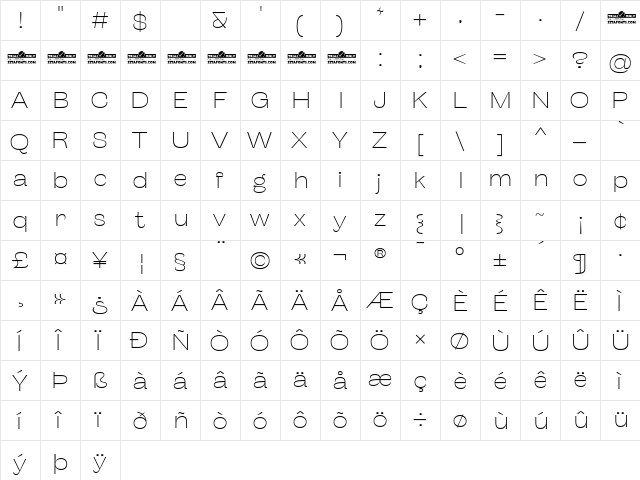
Stinger Wide Trial Thin
| Foundry | Studio Kmzero & Zetafonts |
| Designer | Cosimo Lorenzo Pancini |
Design Context for Stinger Wide Trial Typeface
Stinger Wide Trial offers clean, dependable letterforms without strong stylistic allegiance, making it a practical choice for designers who need flexibility. Its slender proportions lend an understated elegance to any composition.